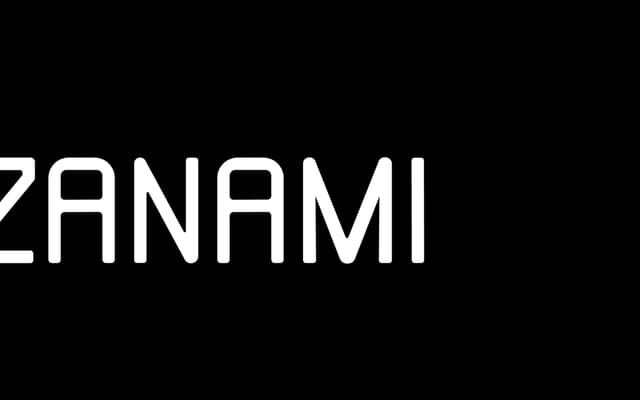
A geometric sans with deliberate monospace influence, designed for versatility across visual styles.
Built on simple geometric forms with a nod to monospaced construction, Izanami aims for broad applicability without committing to a single aesthetic register. The extended Latin glyph set makes it usable across a range of Western languages. Its restraint is both its strength and its limitation, offering neutrality rather than a strong typographic voice.
Described explicitly as a geometric sans with monospace influence, placing it squarely in the geometric sans subcategory with a functional, grid-based character.